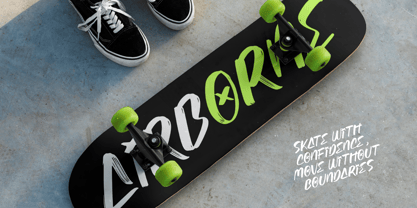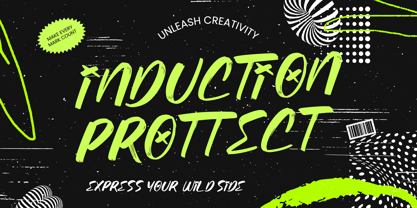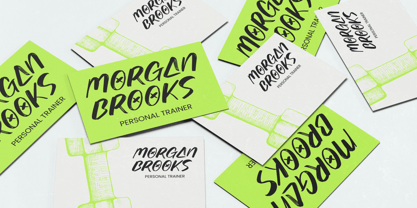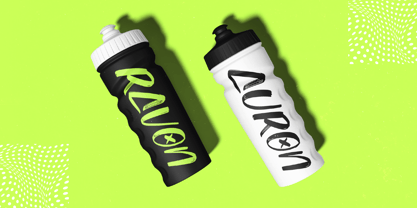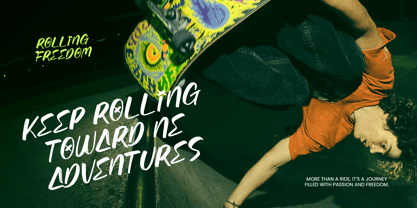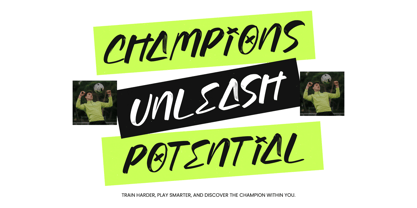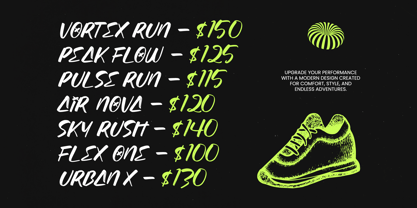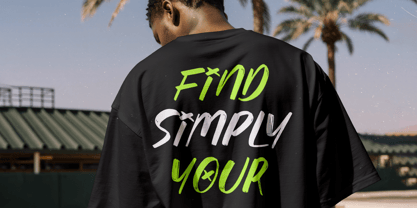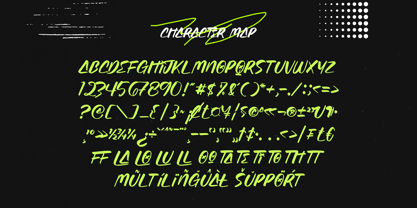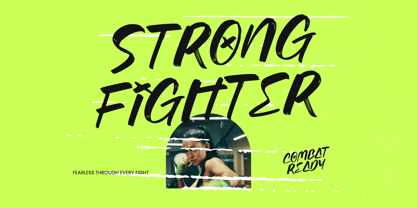
Induction Prottect
La famille de polices Induction Prottect a été conçue par Heru Utama Putra et publiée par Stylishtype Studio. Induction Prottect contient 2 styles et options de package familial. En savoir plus sur cette famille
Unleash raw creative energy with Induction Prottect - Display Brush, a powerhouse typeface designed to command immediate attention. This expressive brush font captures the authentic spirit of street-style typography, blending hand-drawn textures with a high-impact aesthetic. Its bold, fluid strokes provide a kinetic visual rhythm that is perfect for designers looking to inject a sense of rebellion and modernity into their visual identities.